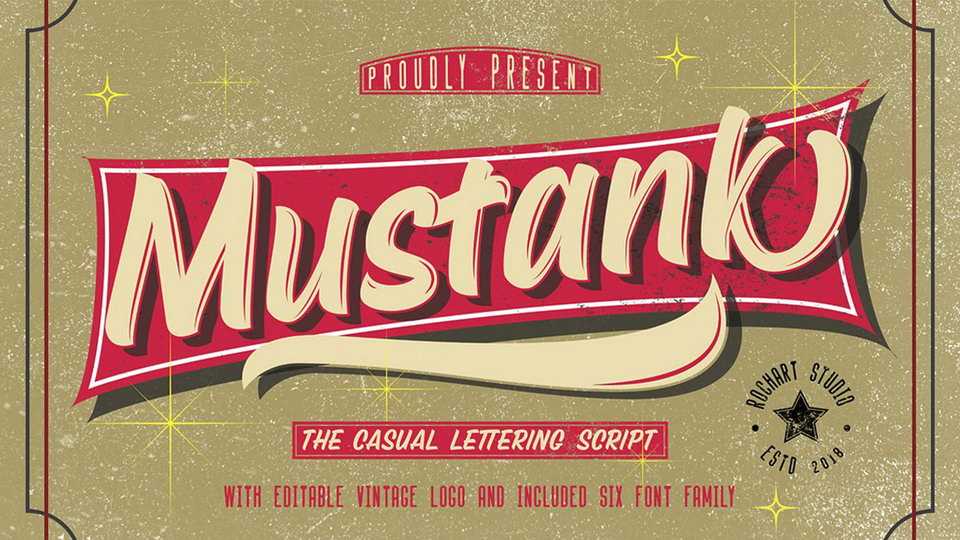
Download Mustank Script font, a casual lettering script with vintage feel. Perfect for logo design, t-shirts, flyers, apparel, packaging, advertising etc.
Designer: Roch Art